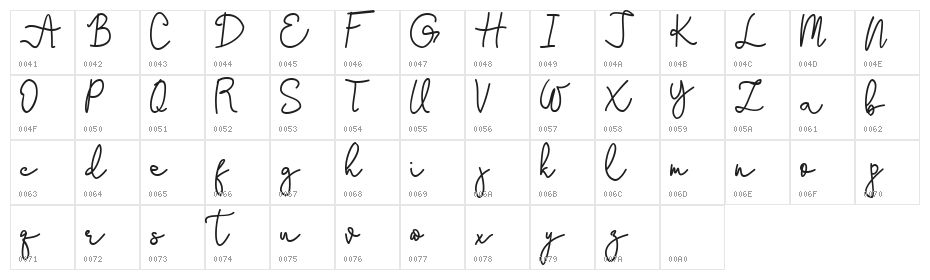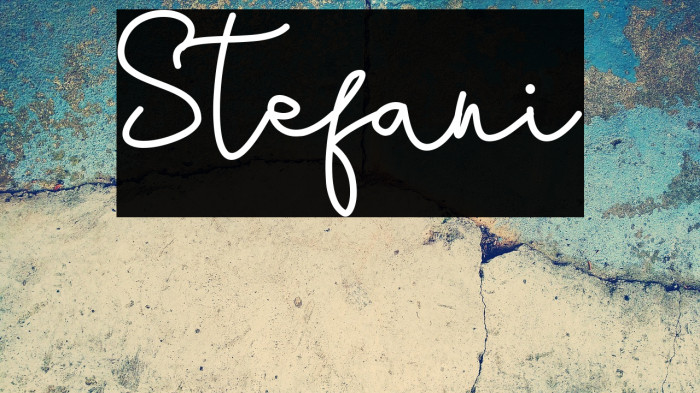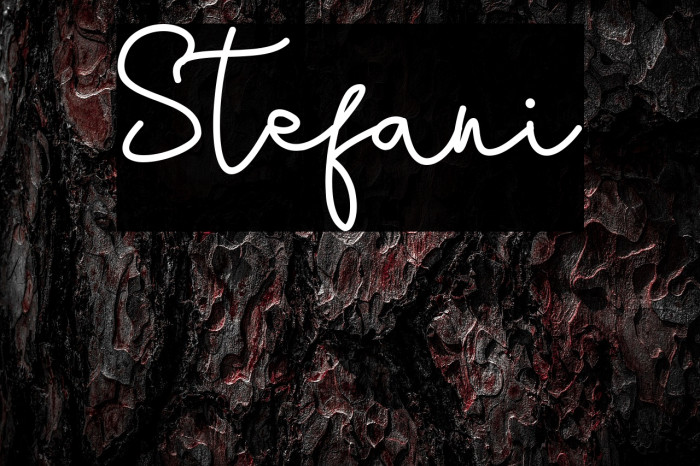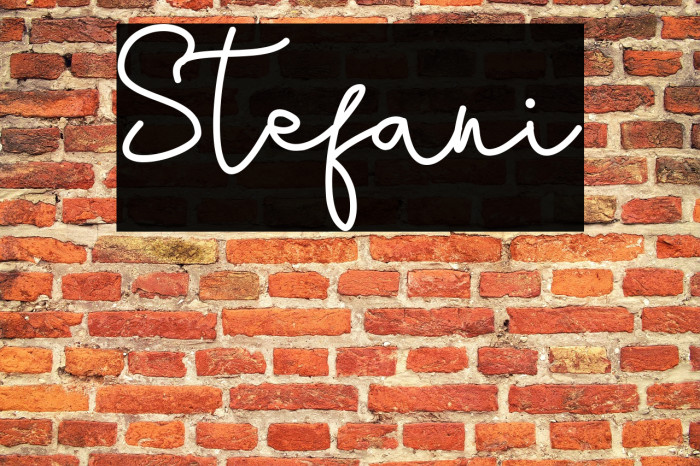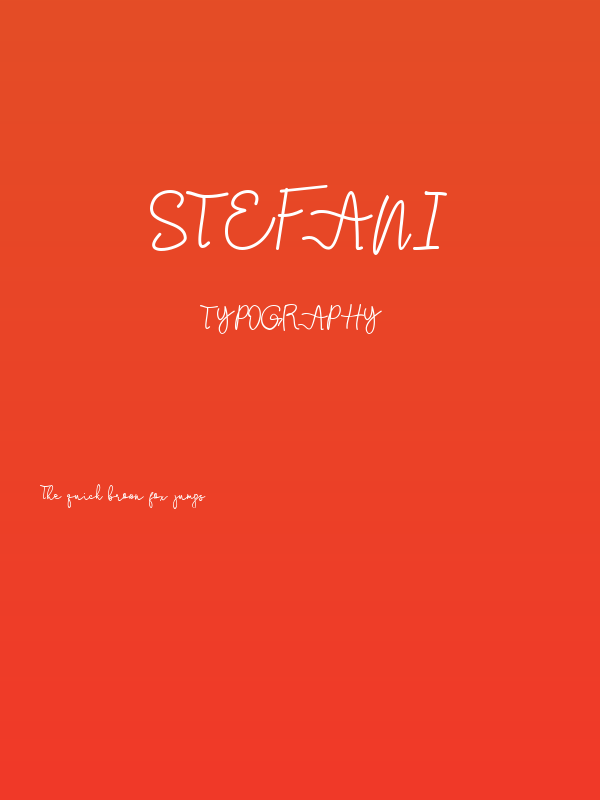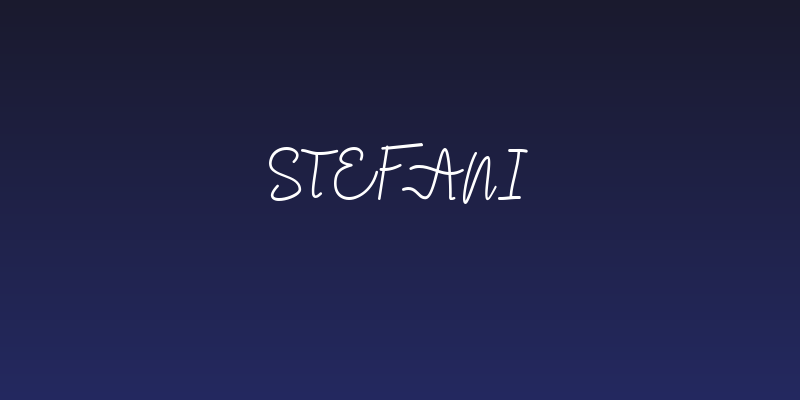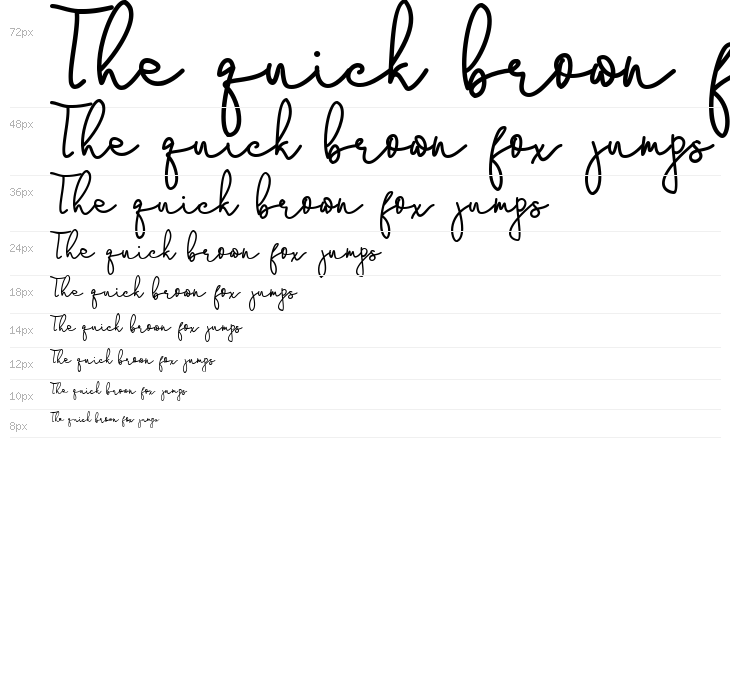
Stefani Font
Stefani Description
This font features a playful and flowing script style, characterized by its smooth, continuous strokes and elegant curves. The uppercase letters exhibit a whimsical flair, with some letters extending slightly above the baseline, adding a touch of personality. The lowercase letters maintain a consistent flow, enhancing readability while preserving the font's artistic appeal. The overall design is informal yet sophisticated, making it suitable for creative projects. The font's unique charm is further accentuated by its moderate character spacing, which ensures clarity without compromising its decorative nature.
| Use Case | Logos, Invitations, Greeting Cards |
| Proposed Projects | Ideal for wedding invitations, greeting cards, personal branding, and creative design projects. |